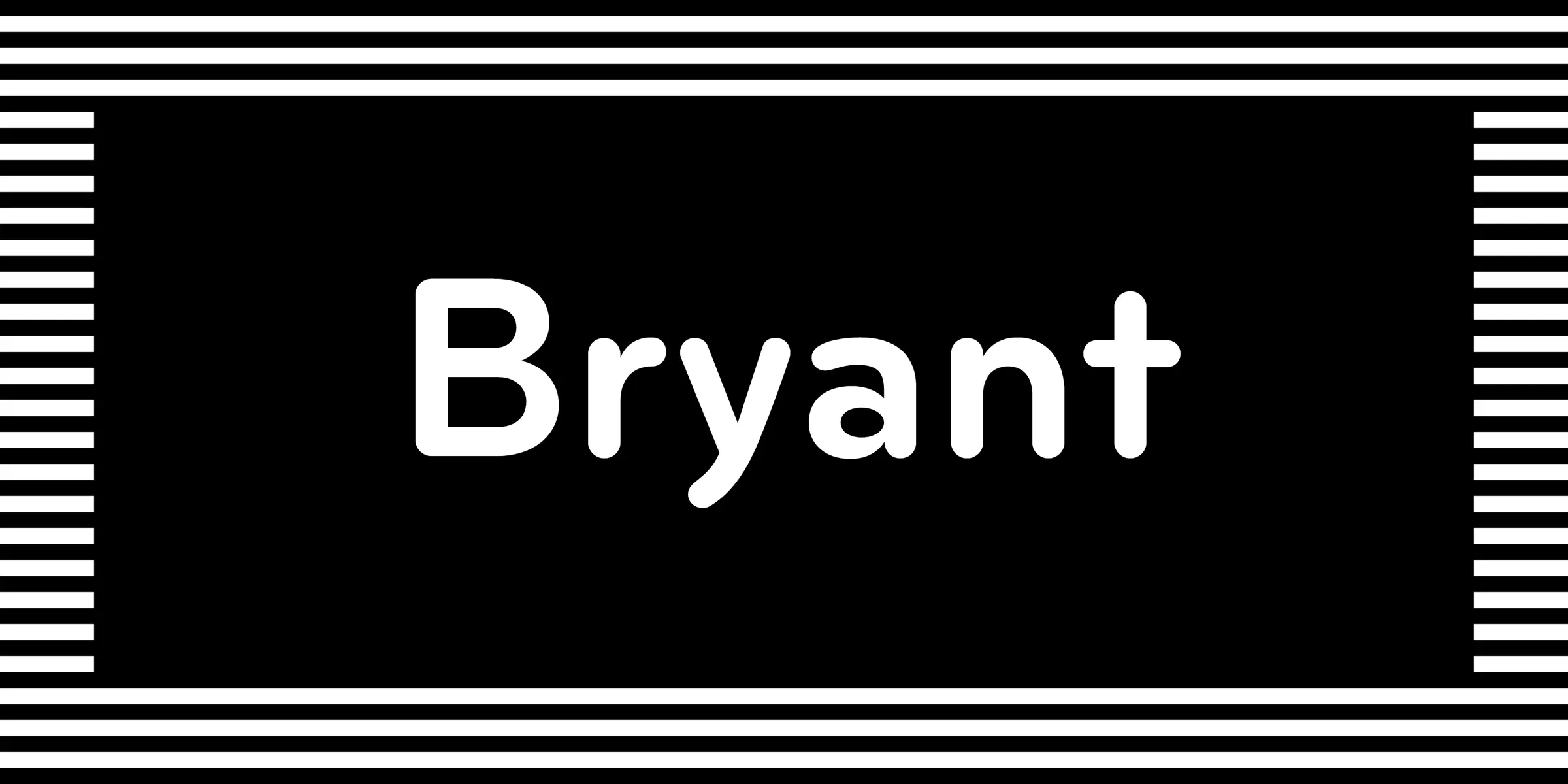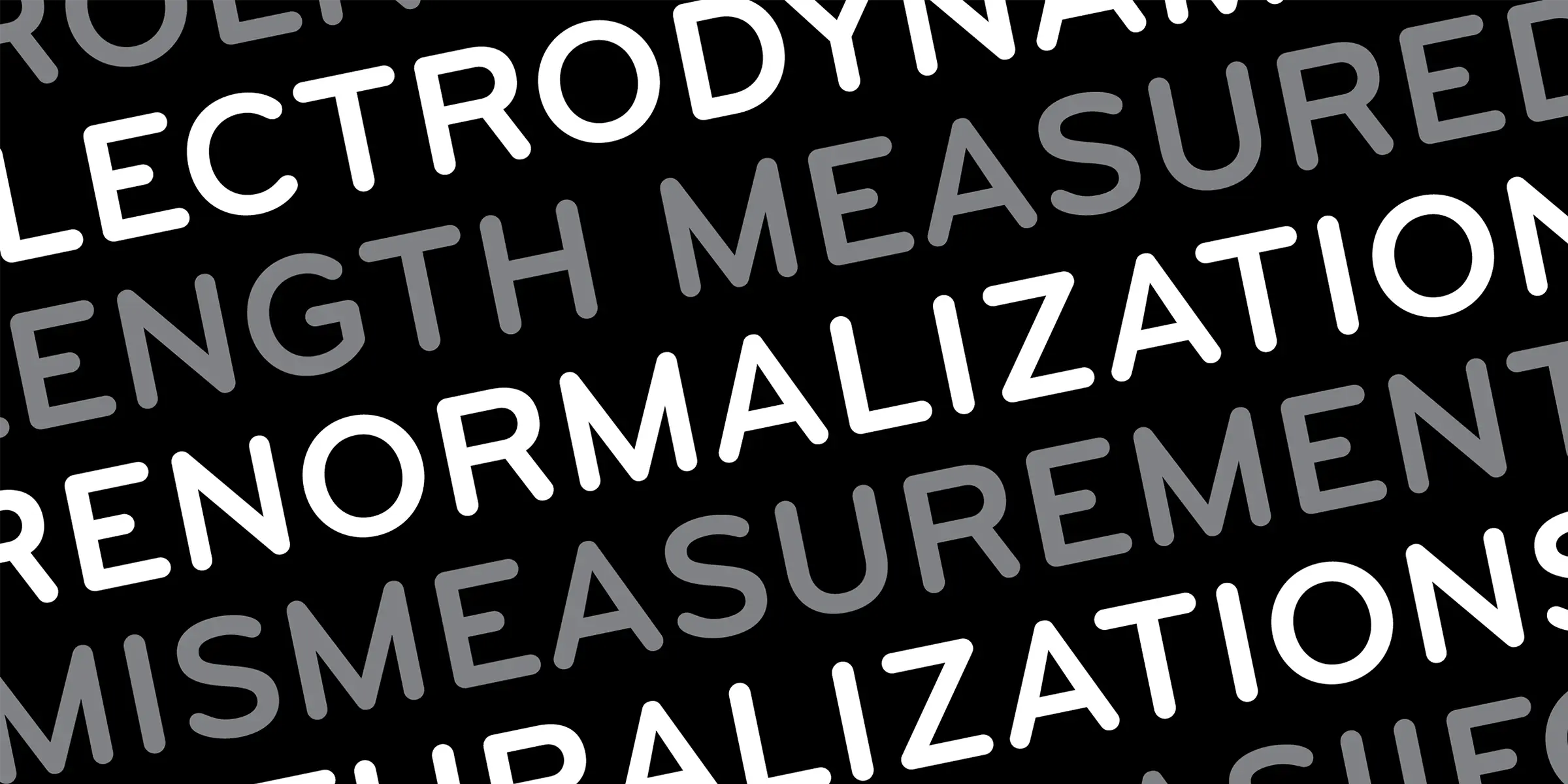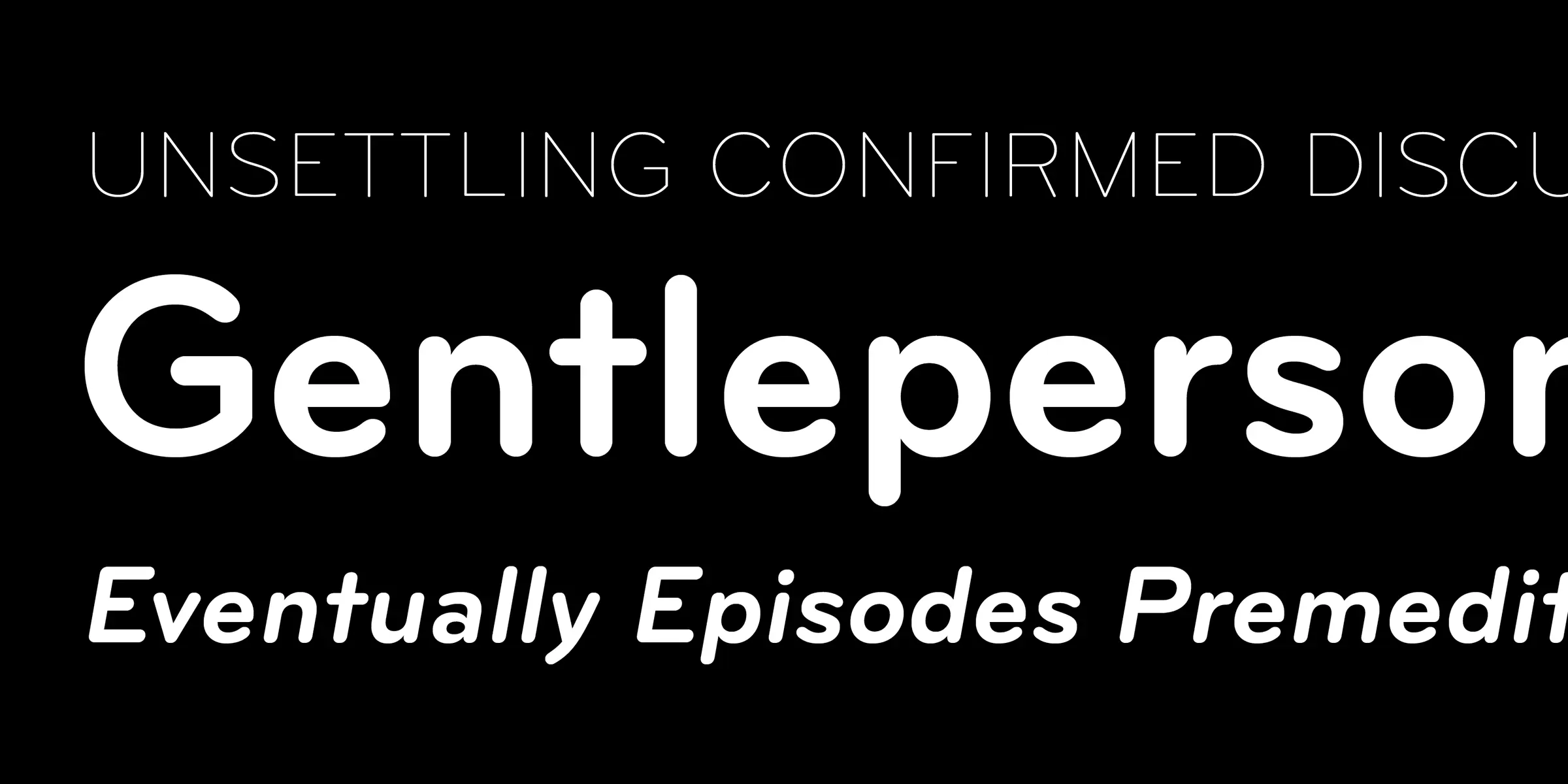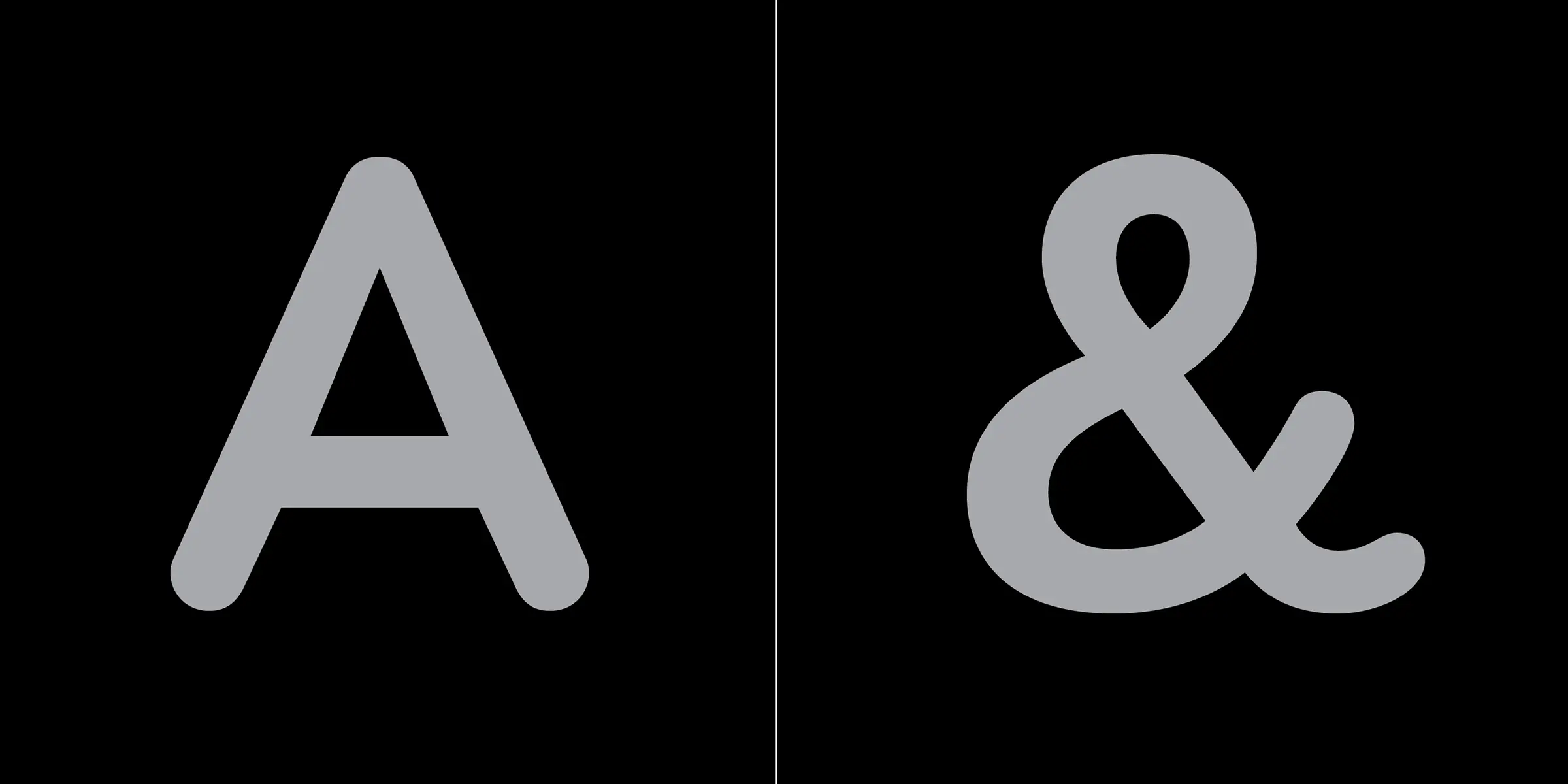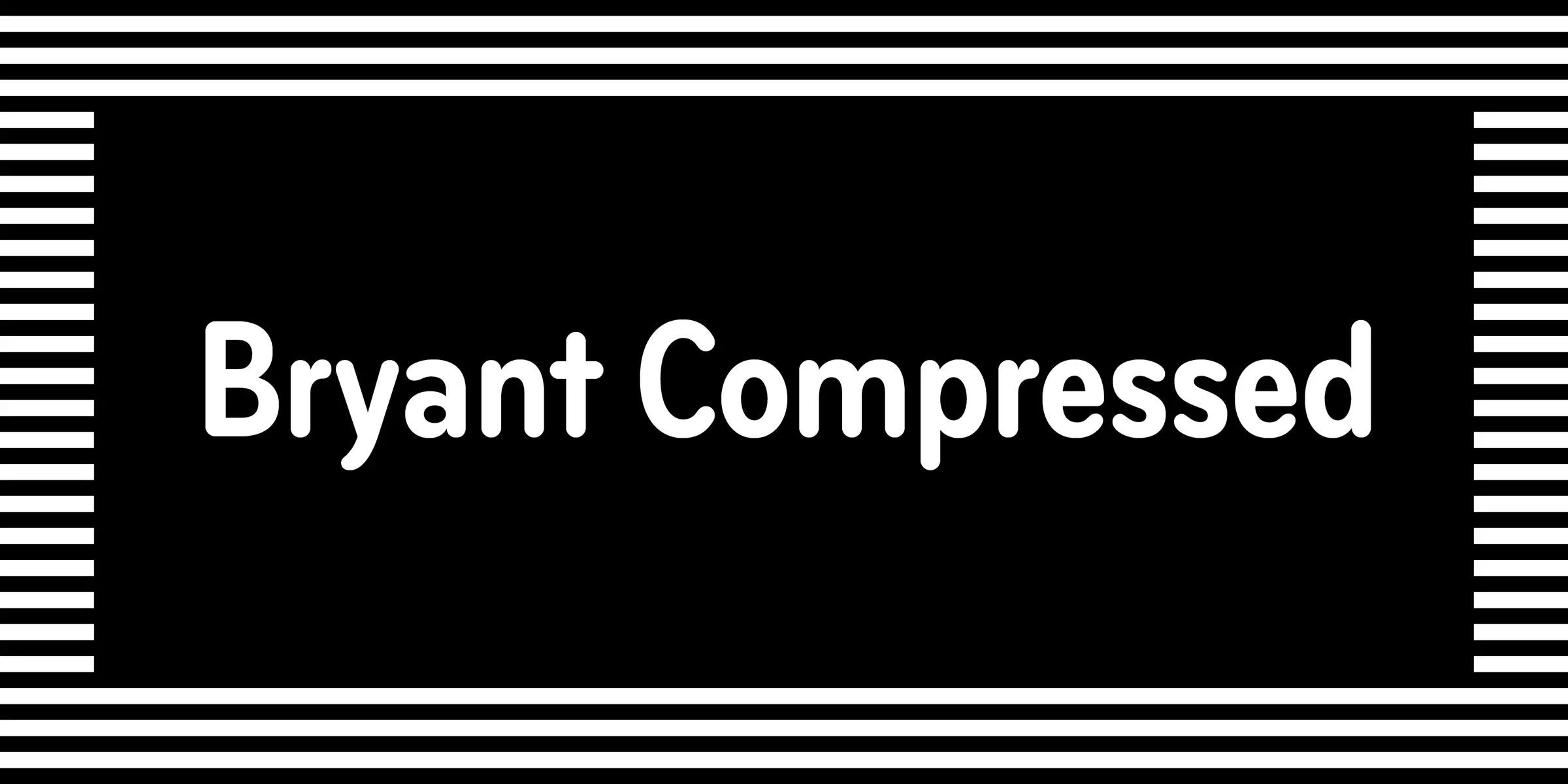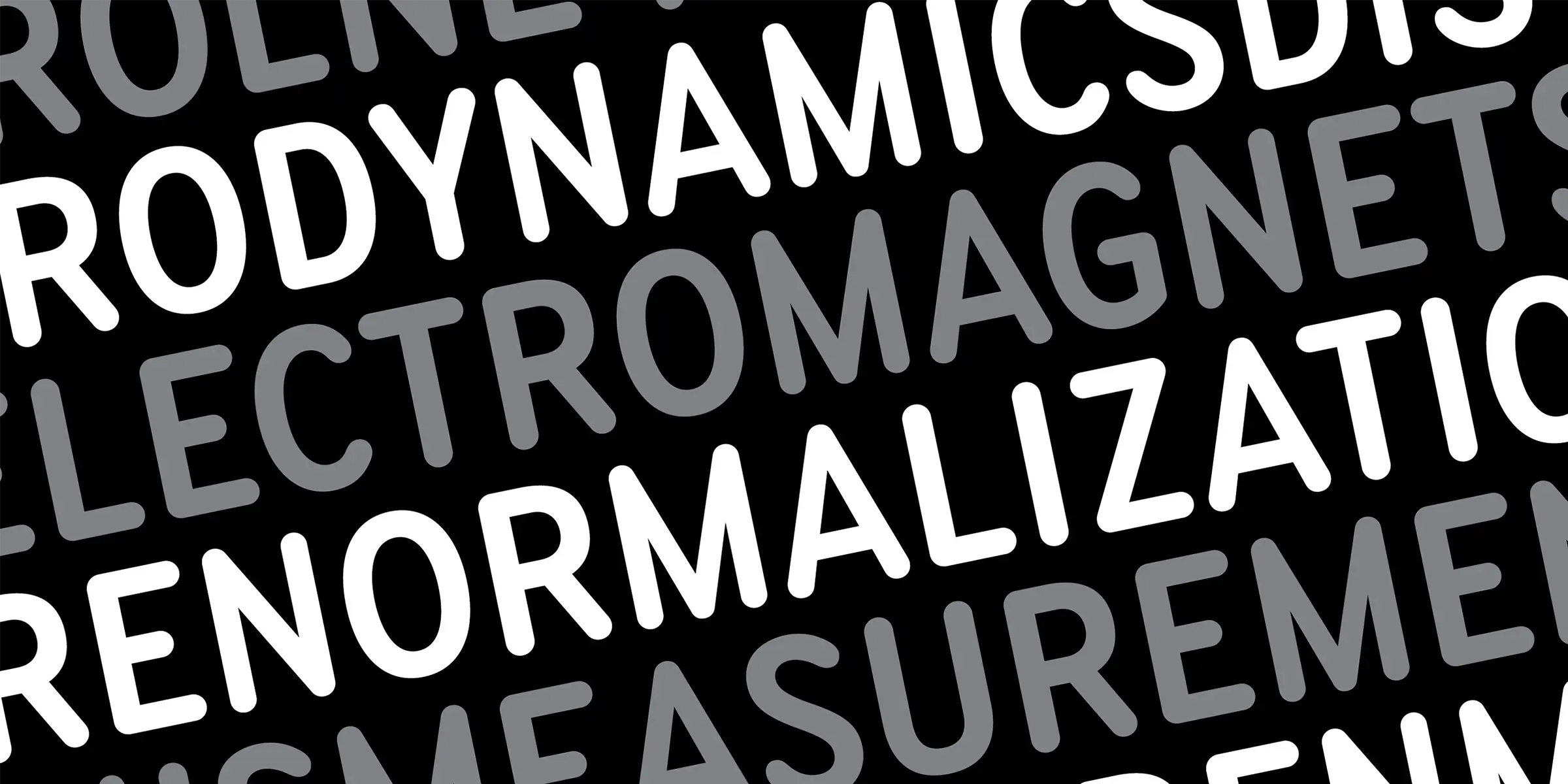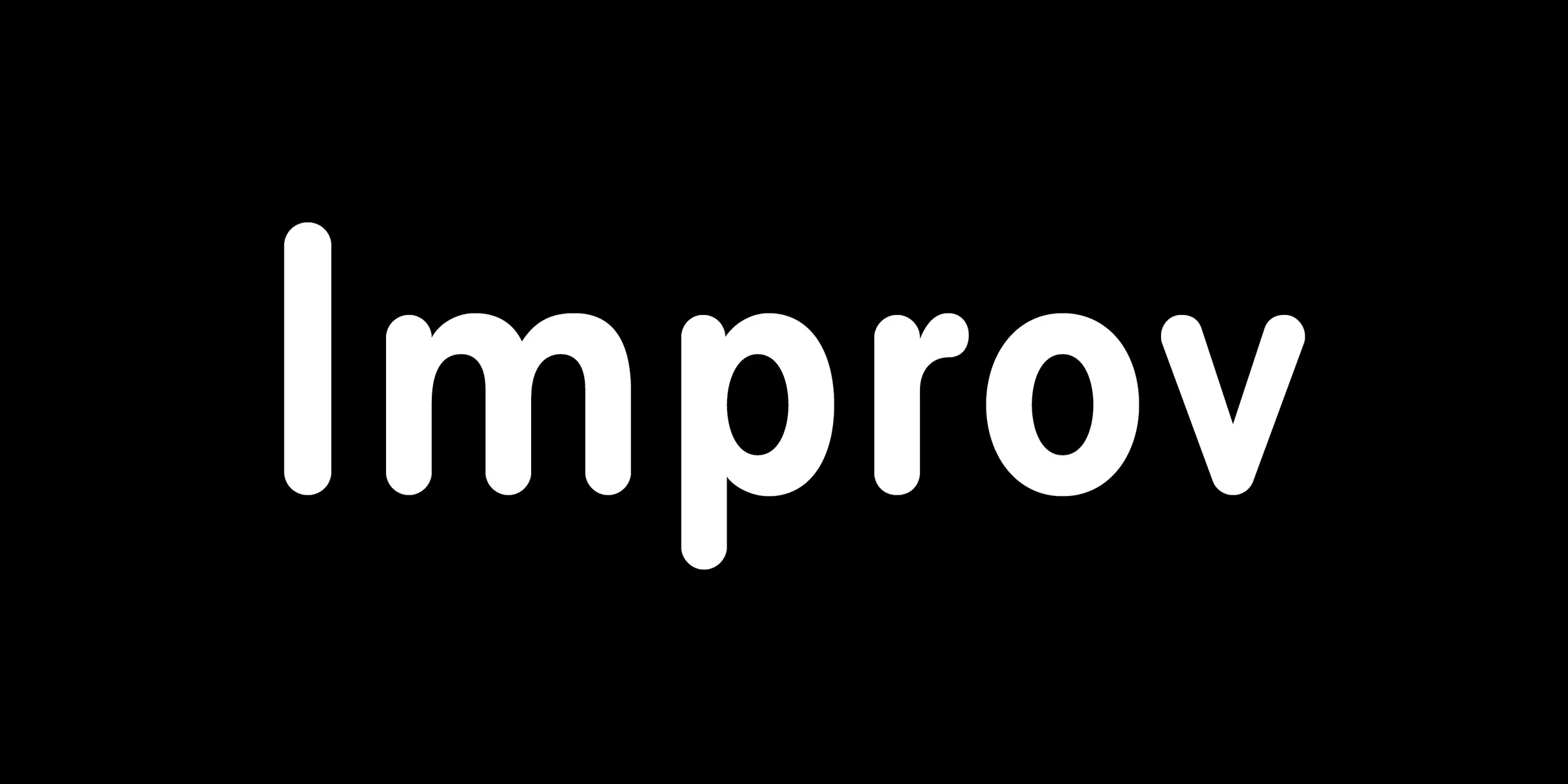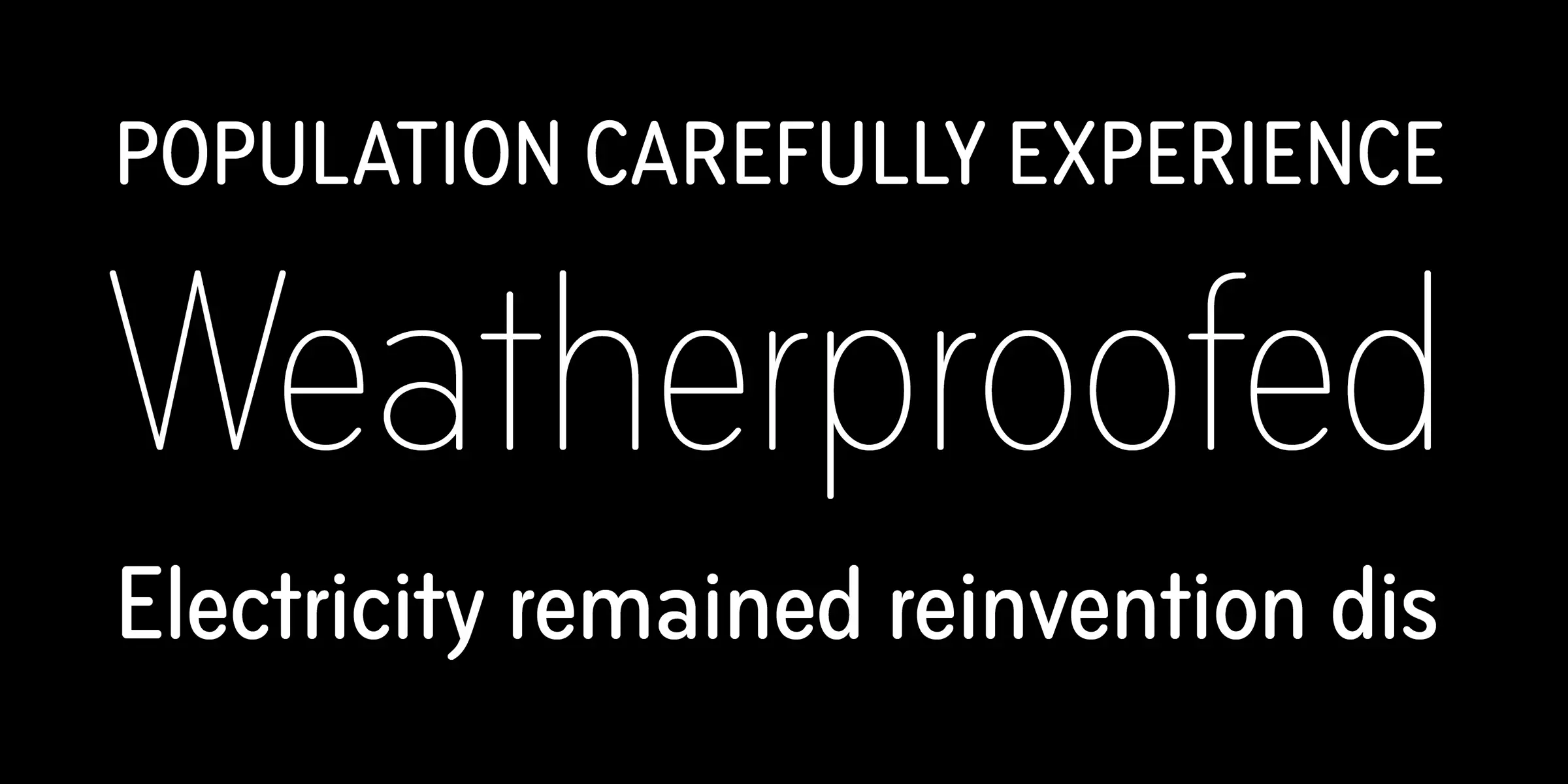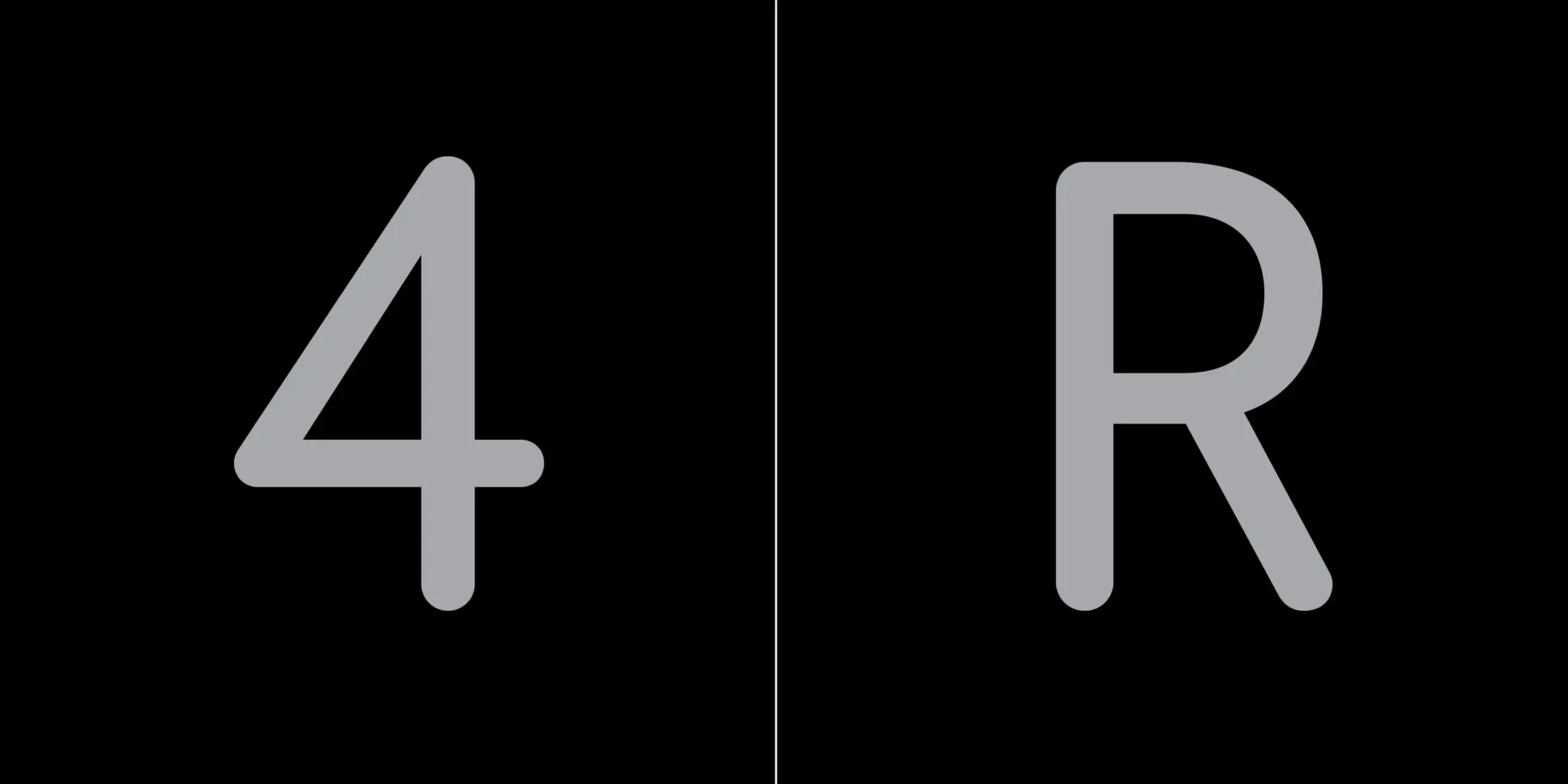
Long since replaced by computers, the popular Wrico mechanical lettering kits used by draftsmen and amateur sign makers in the 60s and 70s served as the inspiration for the Bryant family of typefaces. Well-suited for a range of tasks, the Bryant fonts are a warm and modern take on the geometric sans serif. Since its original release in 2002, Bryant has been updated and expanded to include Extended Latin support as well as a Pro version with Small Caps, multiple numeral styles, and italics.
Bryant Condensed is the middle member of the three Bryant widths. Exuding the same warm demeanor popularized by its big brother Bryant, this family of condensed fonts is a simple collection of four weights. The name denotes a condensed width though it’s probably best described as ‘not too wide’. Given that, we think the family is well-suited for a range of display and medium text sizes. OpenType features include arrows and stylistic alternates.
Bryant Compressed is the narrowest of Bryant’s three widths, designed for situations where large point sizes and maximum letter count need to coexist. Sharp stem joins and increased contrast — stylistic departures from the other weights and widths — allow these fonts to preserve Bryant’s warm tone while saving space. OpenType features include arrows and stylistic alternates.